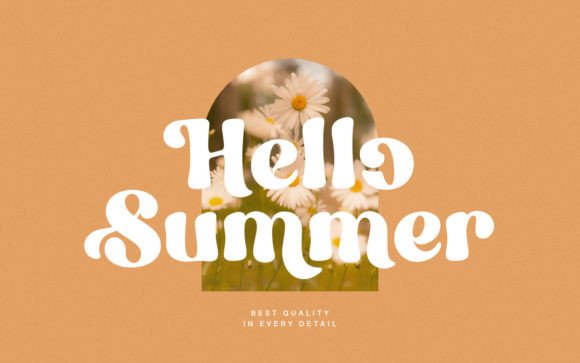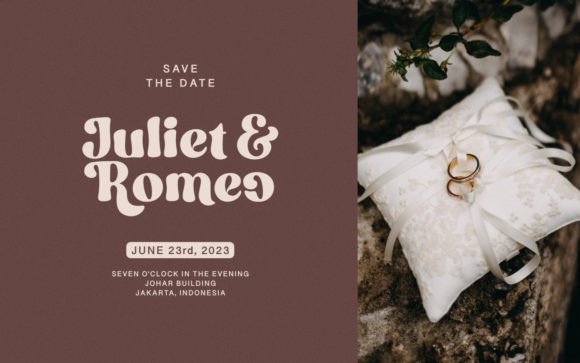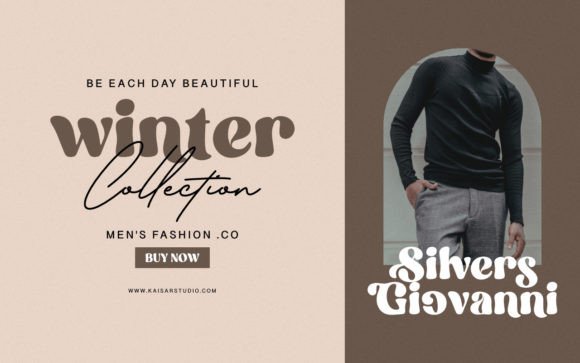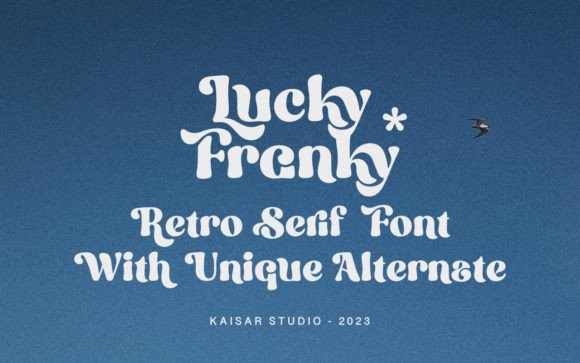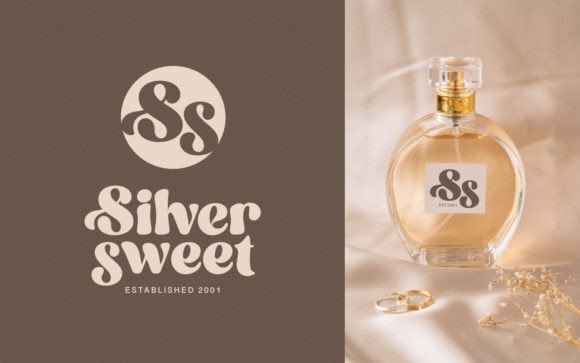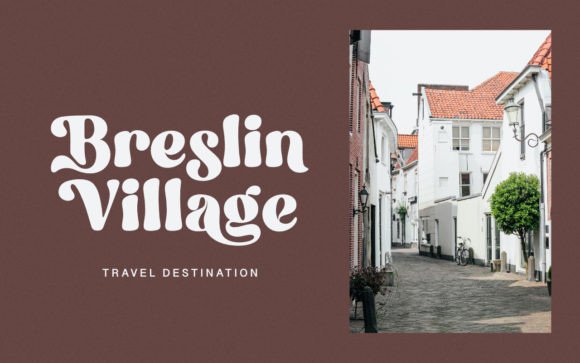
Introduction to Lucky Franky Font
Have you ever stumbled upon a beautiful typography that instantly sparks your creativity? For designers, it’s a moment of pure joy when we find the perfect font to bring our ideas to life. I still remember the thrill of discovering the Lucky Franky Font, a stunning serif typeface that exudes elegance and sophistication. Its unique style and exquisite look make it a valuable asset for any creative project.
Whether you’re designing a luxury logo, a book title, or a fashion brand, the Lucky Franky Font is an excellent choice. Its high-quality design and transparent background make it perfect for any application. As a design resource, it’s free to download and use, making it an attractive option for designers on a budget.
With the Lucky Franky Font, you’ll be able to add a touch of class and sophistication to your designs, making it a valuable addition to your design arsenal.
Key Features of Lucky Franky Font
- High-quality, unique design for creative projects: Lucky Franky Font is perfect for designers looking for a distinctive and eye-catching typography for their designs.
- Perfect for design resources: Lucky Franky Font is an excellent addition to any designer’s collection, providing a unique and versatile typography option for creative projects.
Honest Review: Lucky Franky Font
I recently had the chance to work with the Lucky Franky Font, and I must say it’s been a pleasant experience. This high-quality font is perfect for designers looking to add a touch of elegance to their creative projects.
- ✨ The font’s transparent background makes it incredibly versatile and easy to use.
- ✨ The font’s clean and modern design makes it a great choice for a wide range of design resources, from brochures to website headers.
However, I do have to mention a few limitations. ⚠️ The font’s limited character set might be a problem for designers who need to work with extensive text.
Overall, I’m impressed with the Lucky Franky Font. It’s a solid design resource that’s perfect for designers looking to add a touch of sophistication to their creative projects. The transparent background and modern design make it incredibly versatile, and the free download option is a huge bonus. If you’re looking for a high-quality font to add to your design arsenal, the Lucky Franky Font is definitely worth checking out.
The Lucky Franky Font is ideal for creative projects, such as logos, business cards, and social media graphics. Its high-quality design and transparent background make it perfect for use in presentations, documents, and even web design.